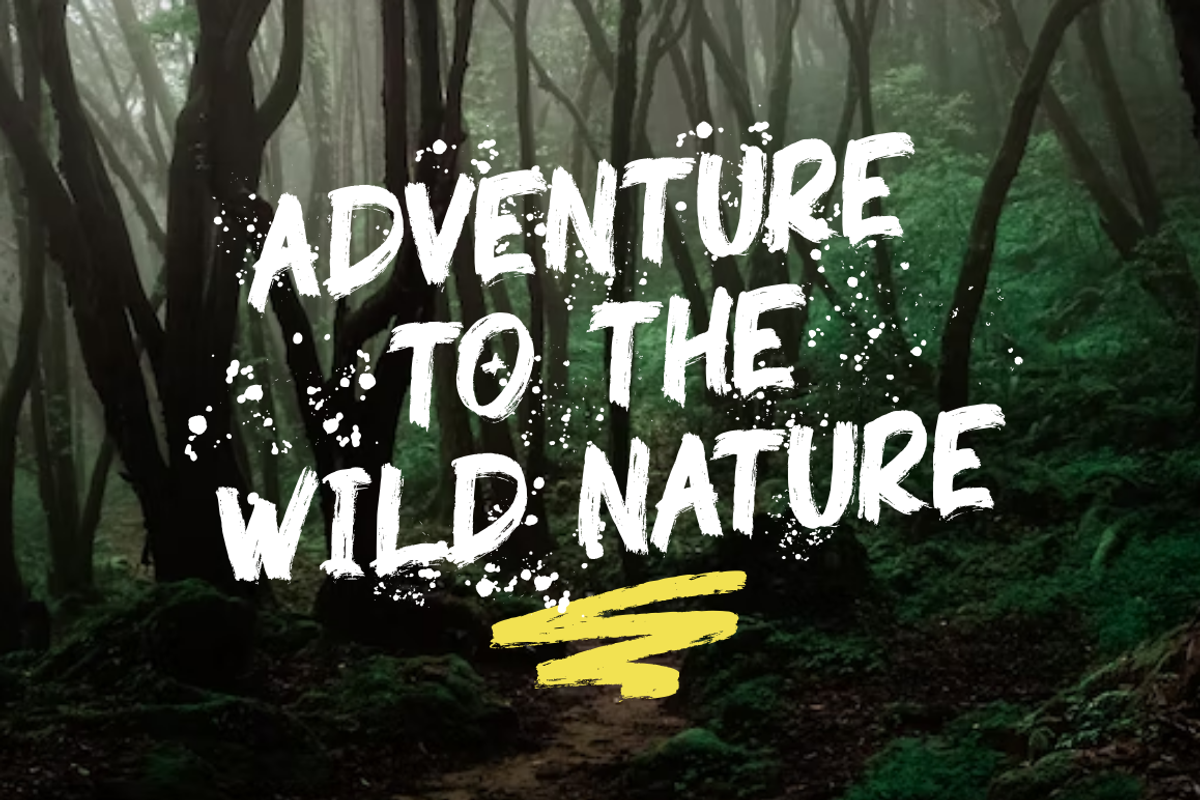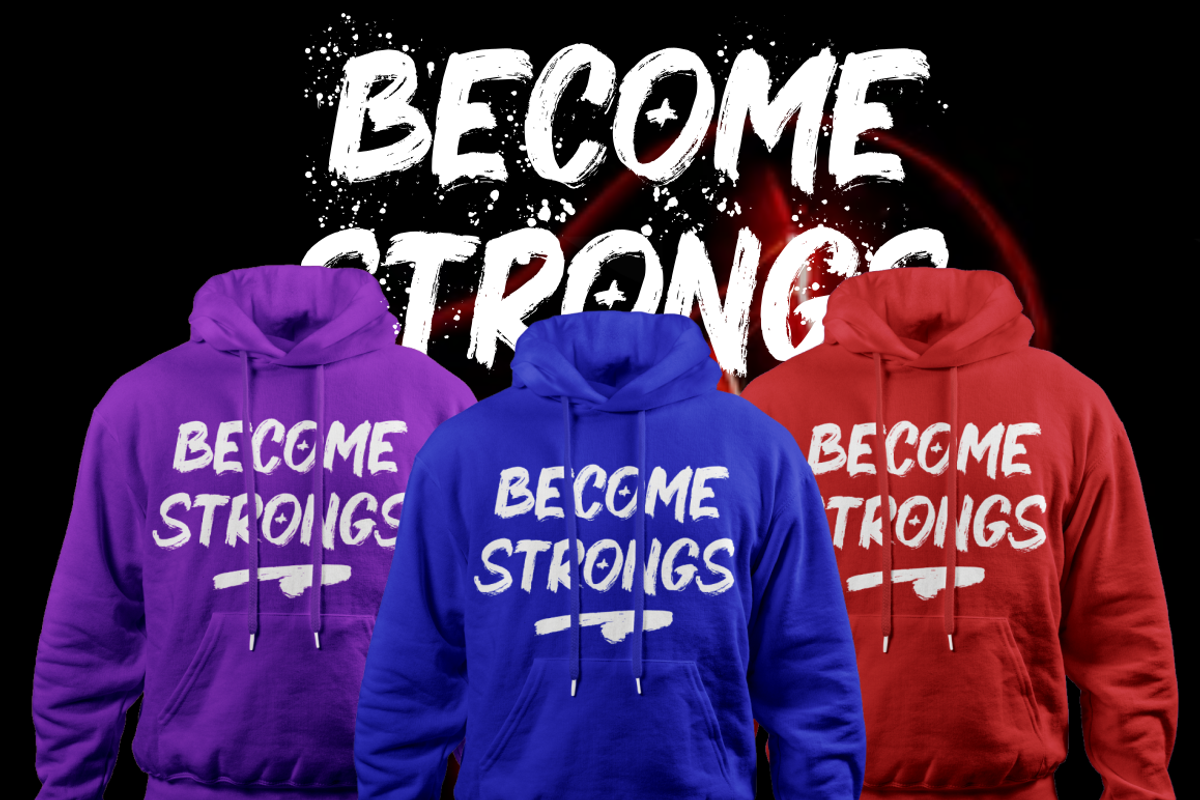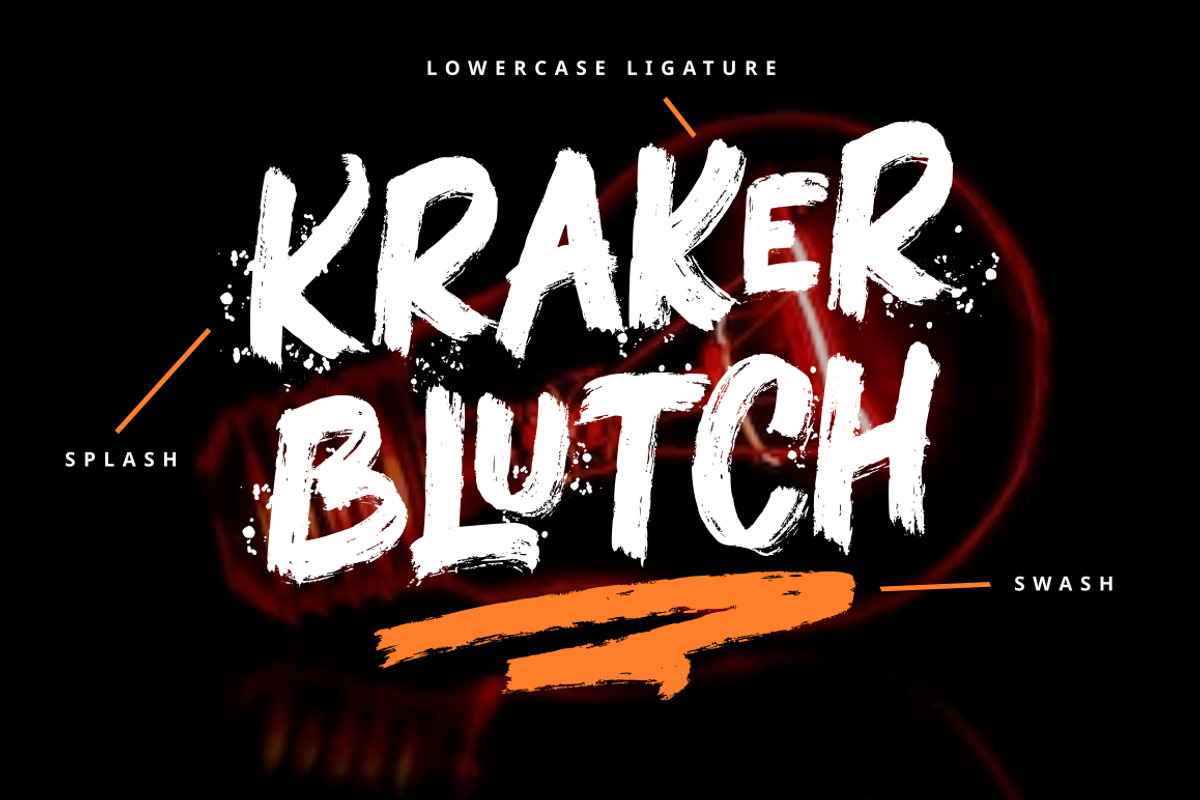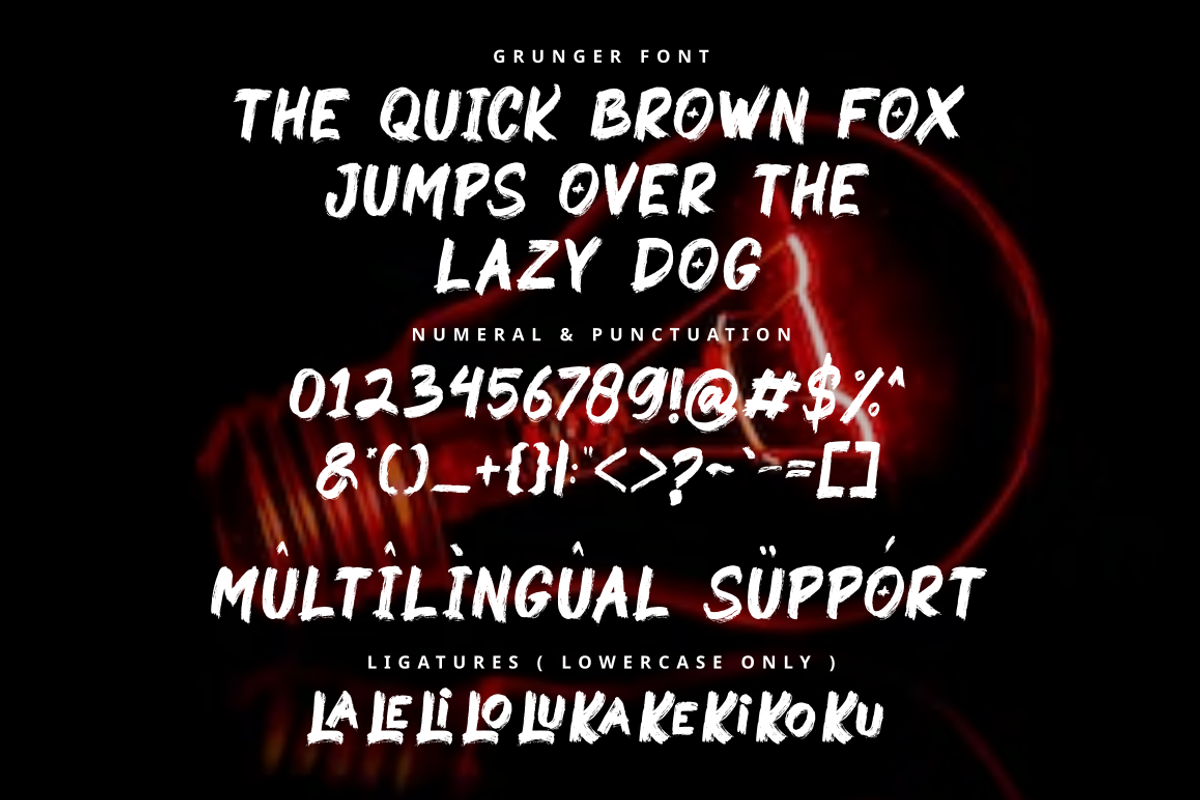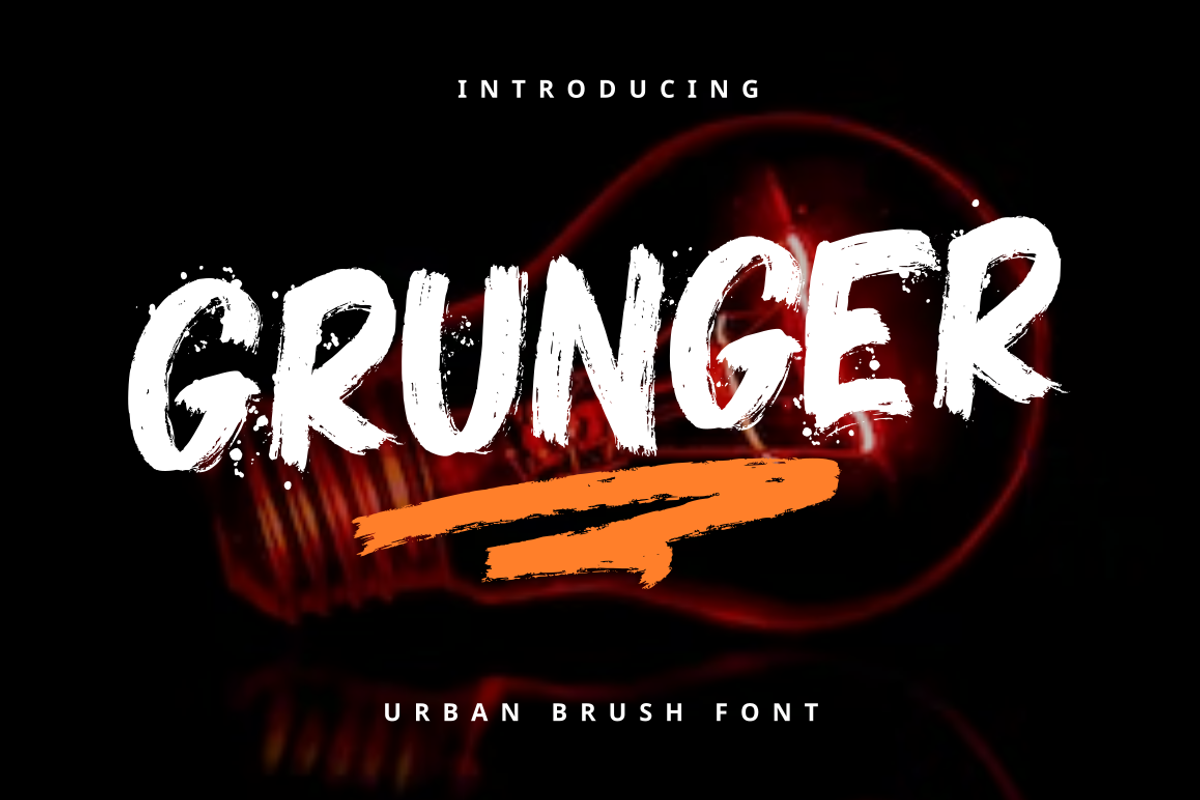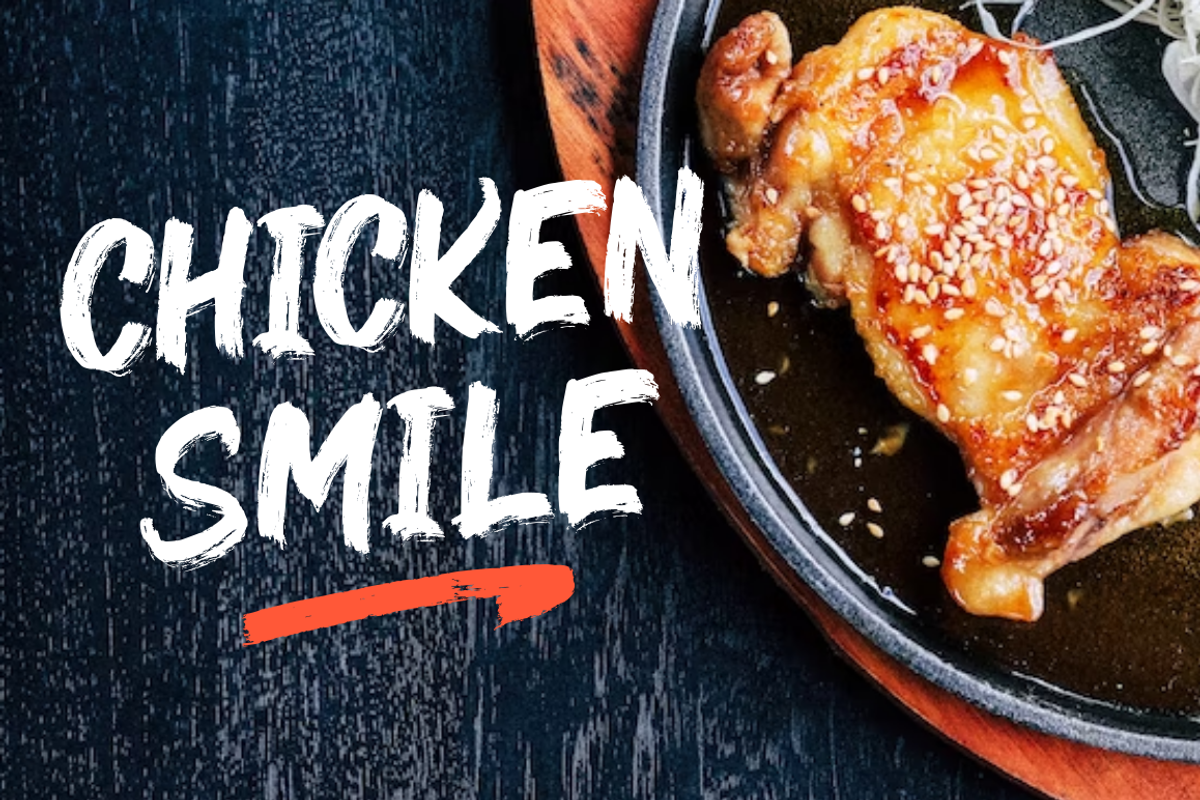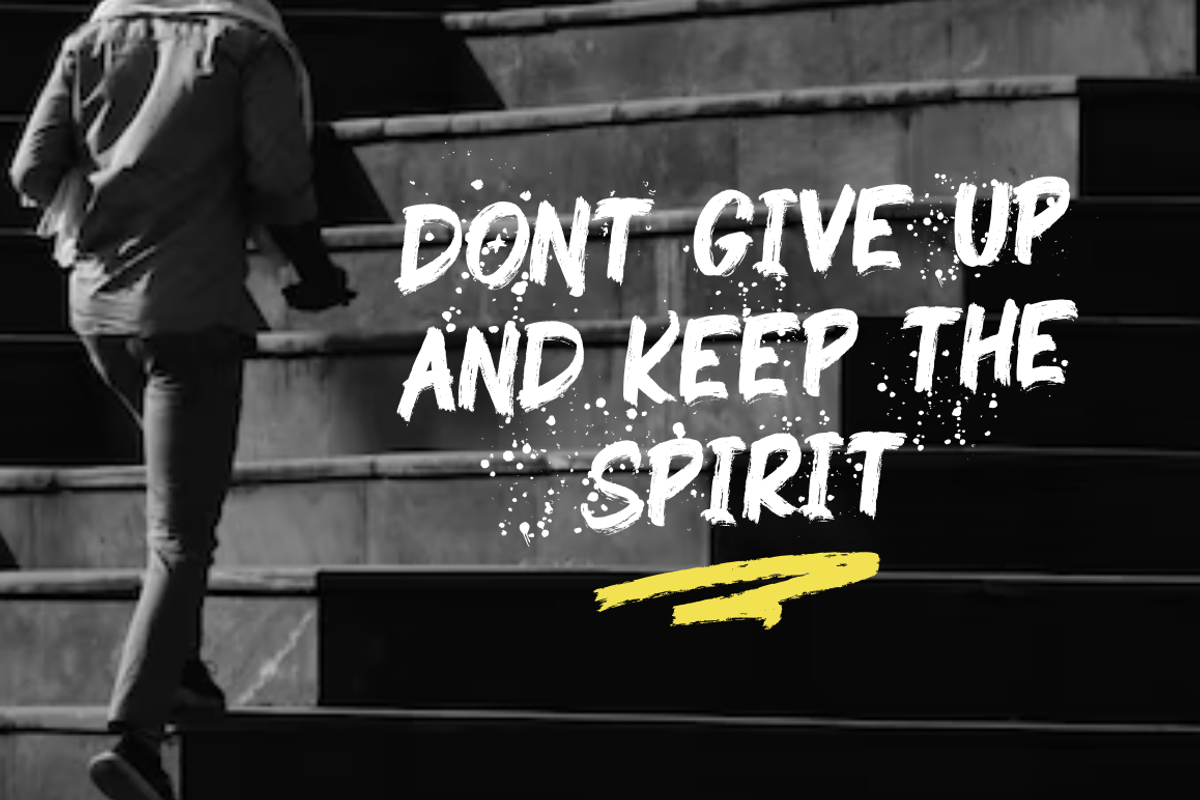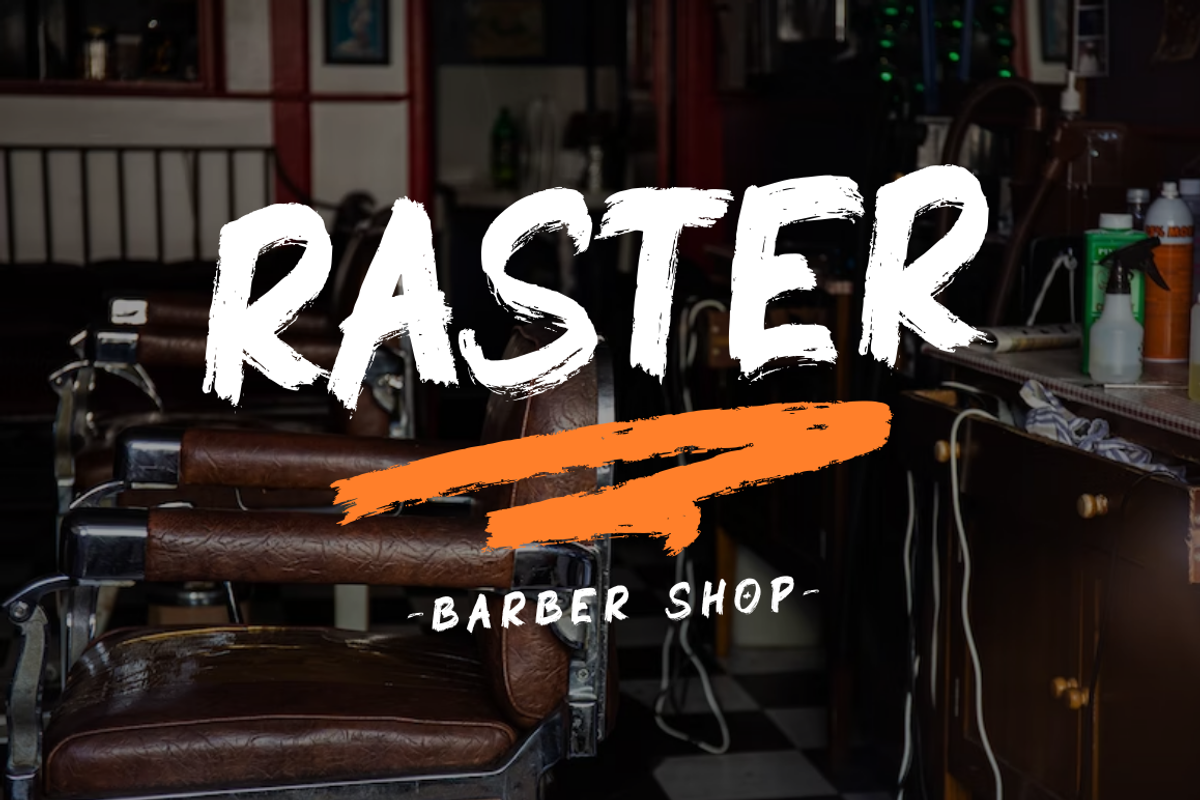
Grunger | Masculine Dry Brush
Want your design to look more masculine and strong?
Grunger font the solution,
Grunger font is a font created with dry brush strokes with natural handwriting and is suitable for your various design needs, for example apparel, logos and branding, brochures, event posters etc.
- More than 200 of glyphs (include Uppercase, Lowercase, Numerals & Punctuations, Ligatures )
- multilingual support